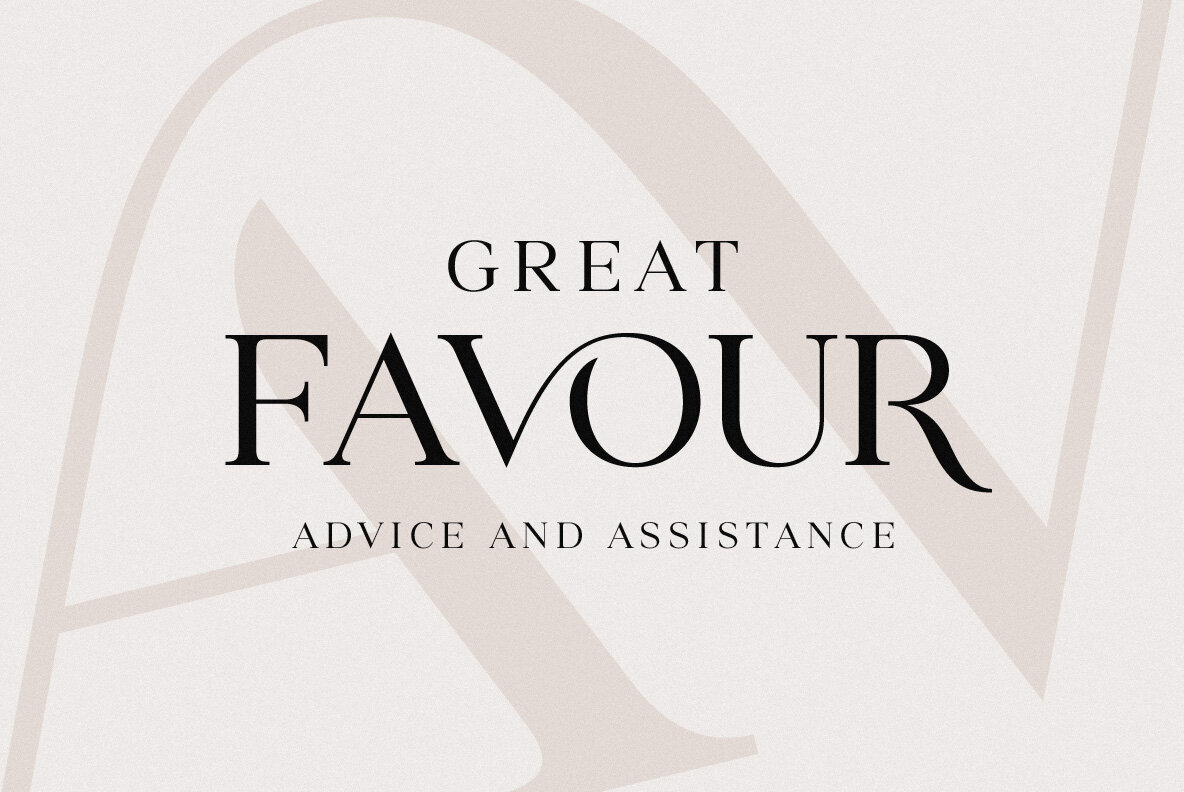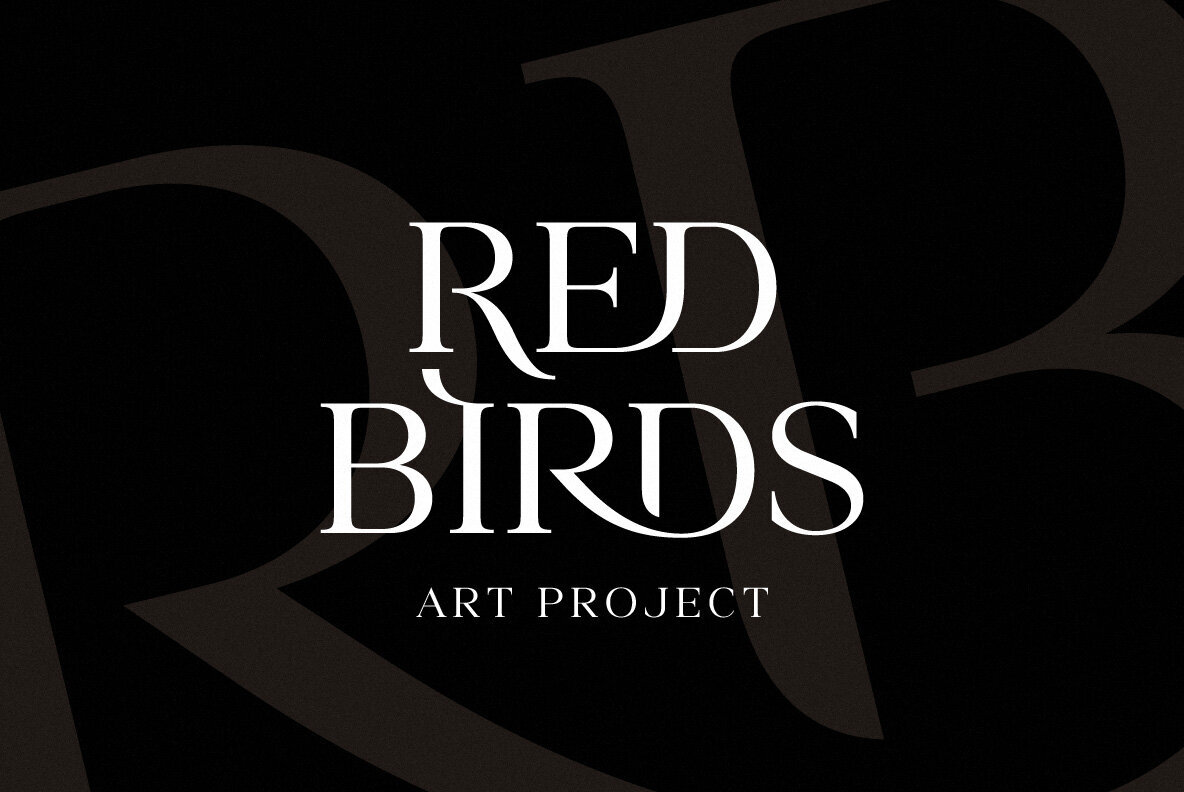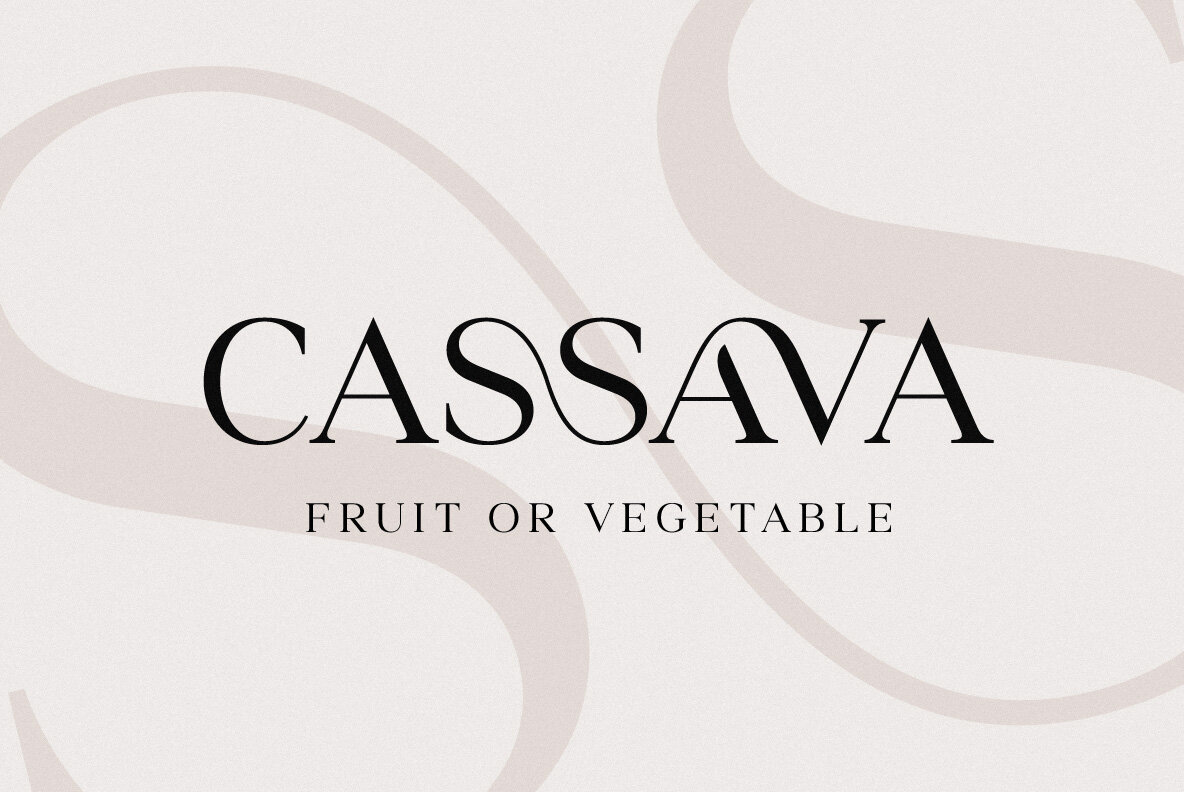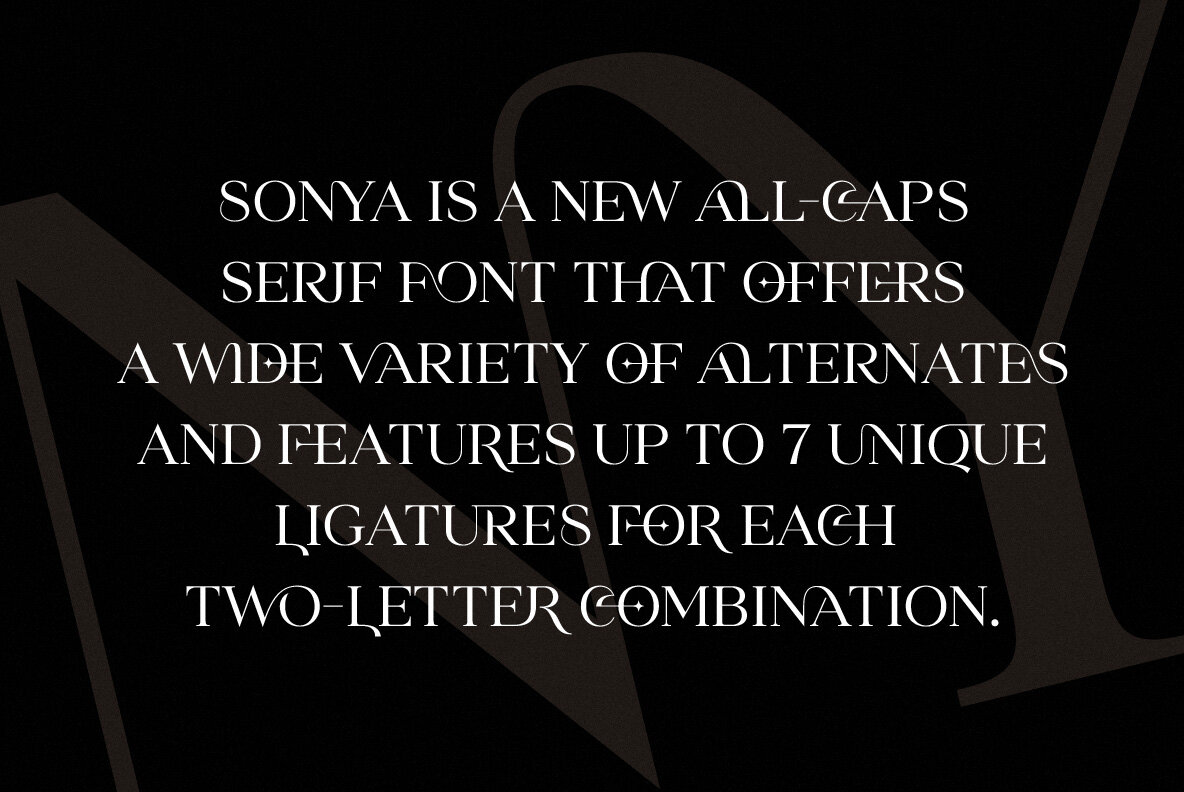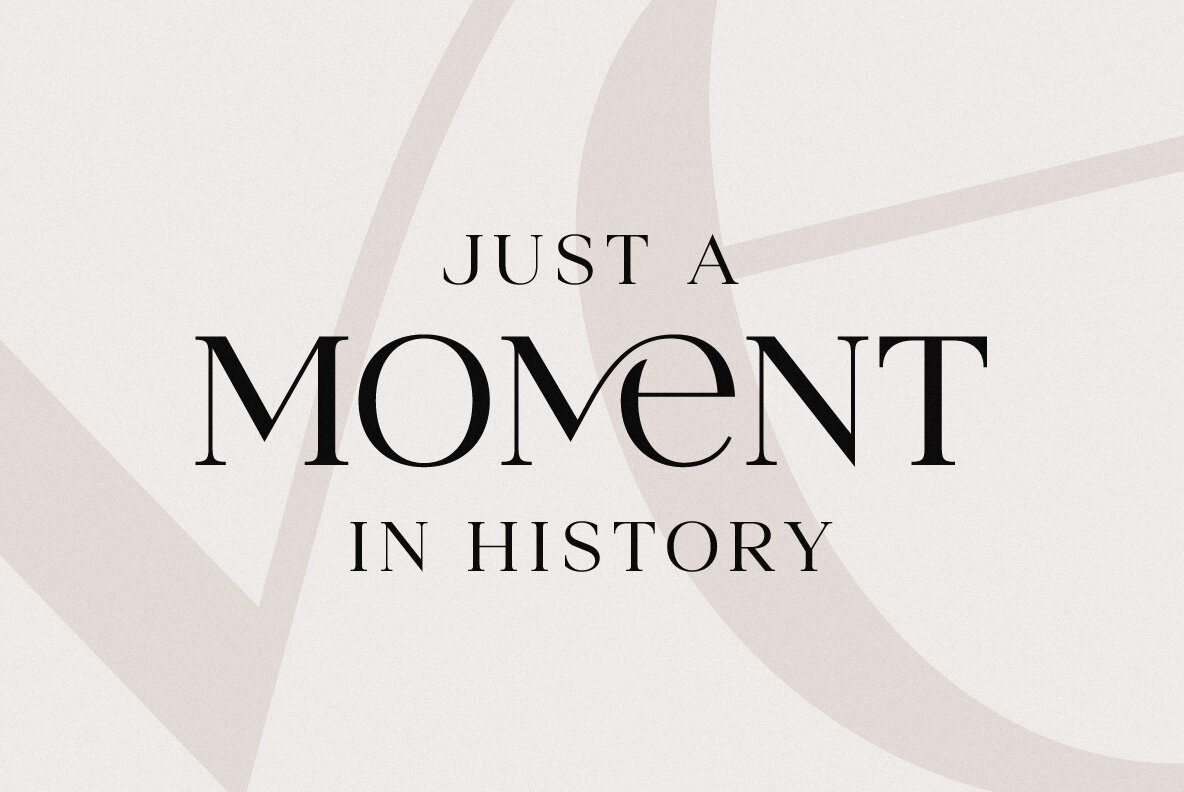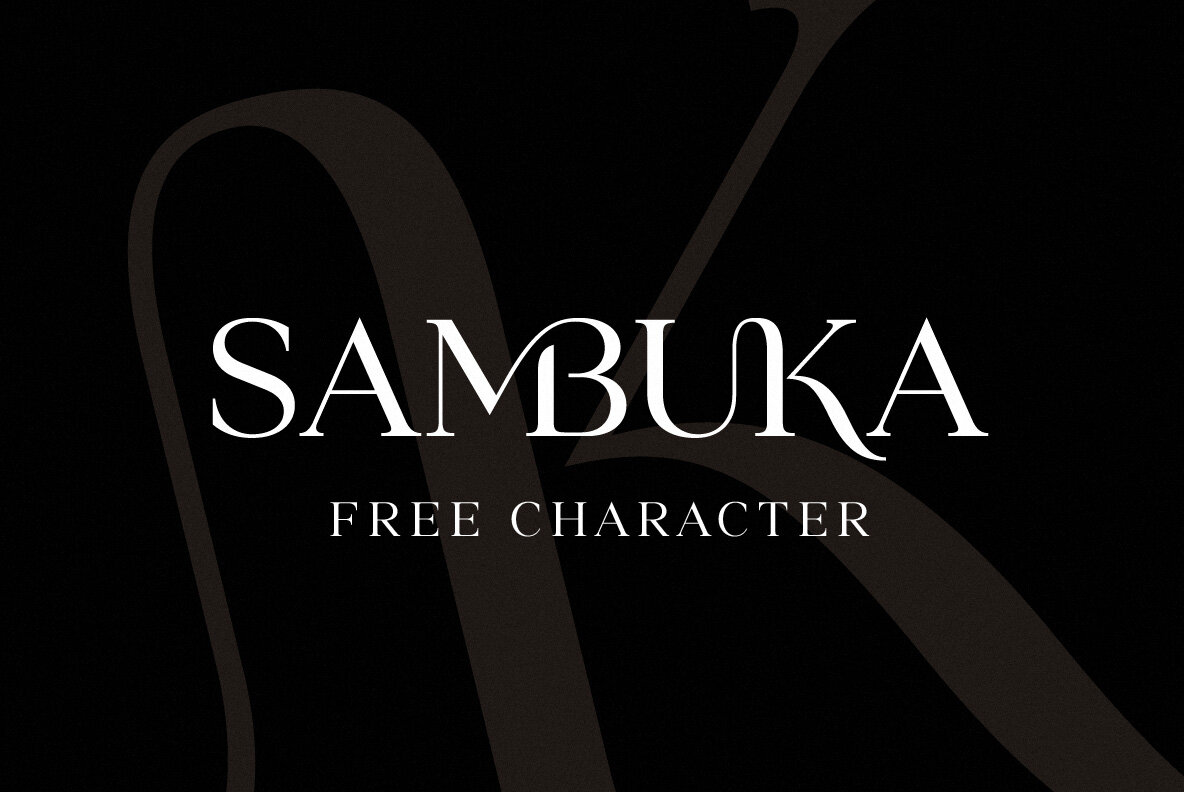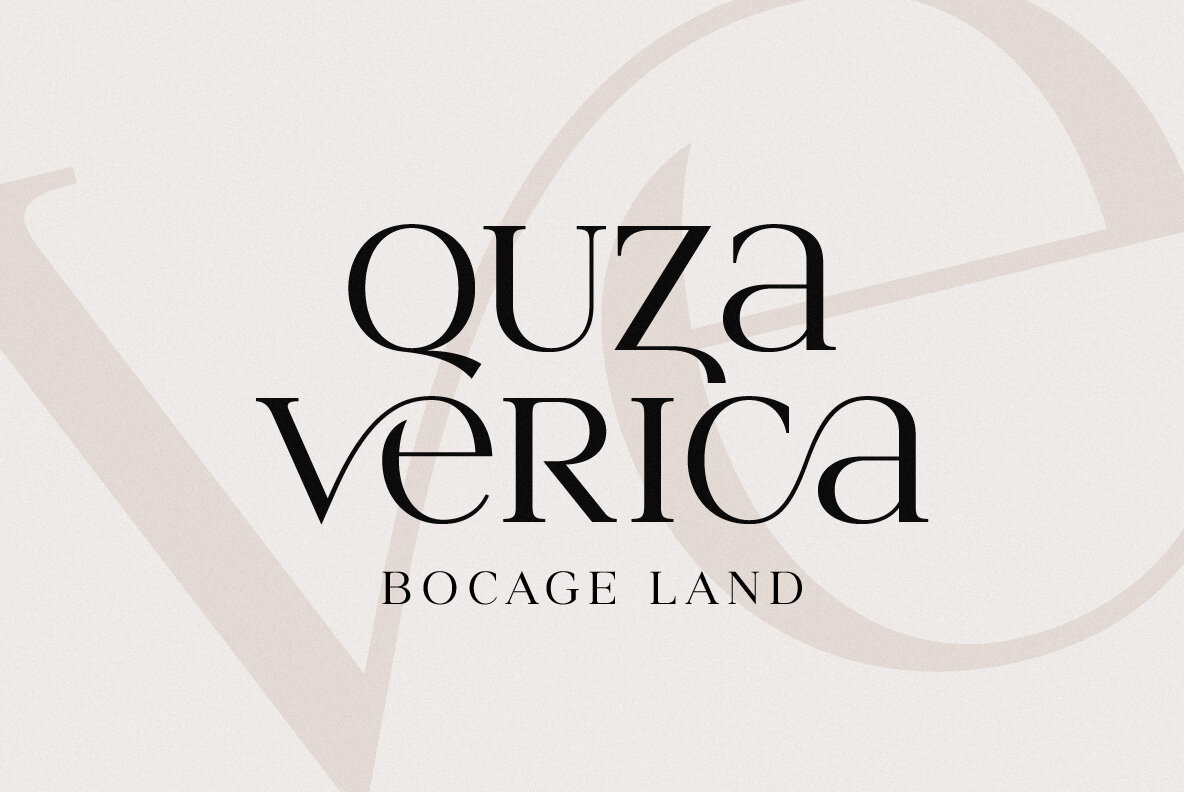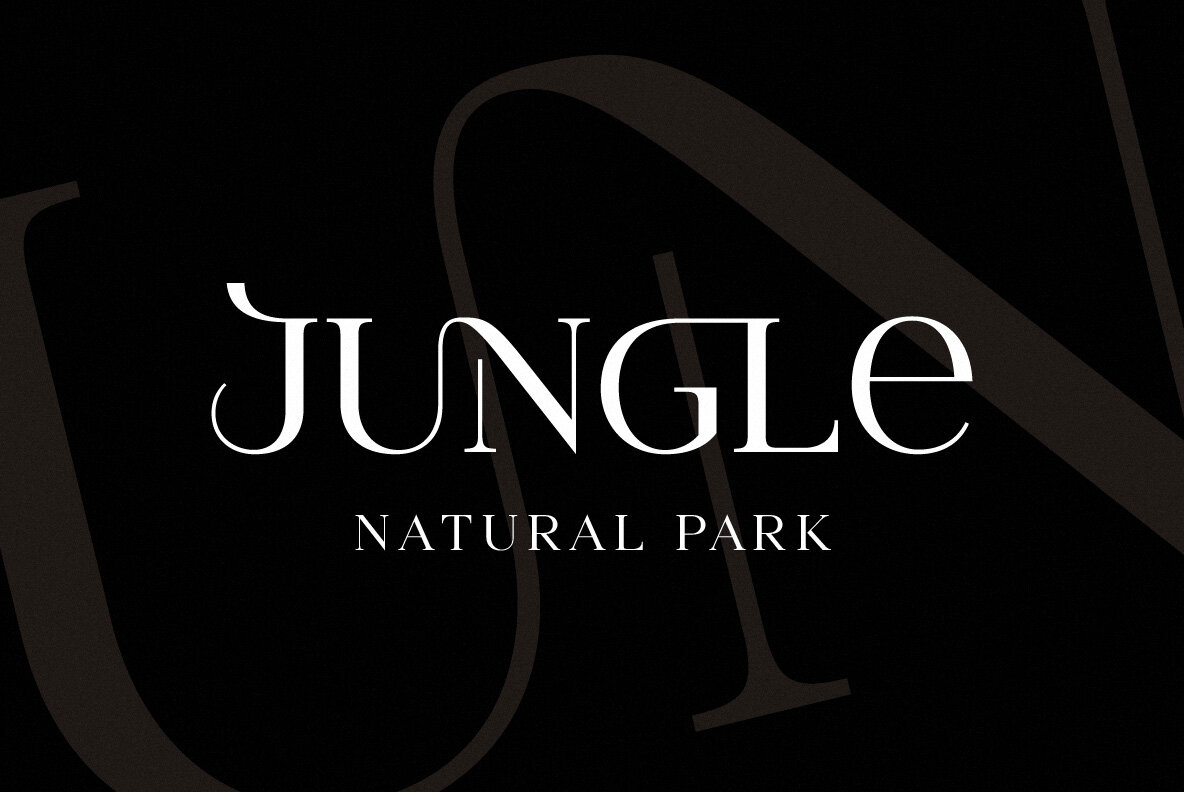
Sonya Font
Sonya
Sonya is an all-caps serif font distinguished by its versatility and distinctive design elements. It presents a rich array of alternate glyphs, providing designers with the flexibility to explore creative typographic expressions. Each two-letter combination benefits from up to seven unique ligatures, enhancing the font's adaptability and aesthetic appeal.
This serif font is perfect for those looking to incorporate a classic yet contemporary style into their projects. Whether used in headlines, logos, or editorial designs, Sonya’s range of alternates and ligatures offers a personalized touch to any creation. Its robust design and intricate detailing make it a compelling choice for any graphic designer seeking to leave a unique mark in their work.